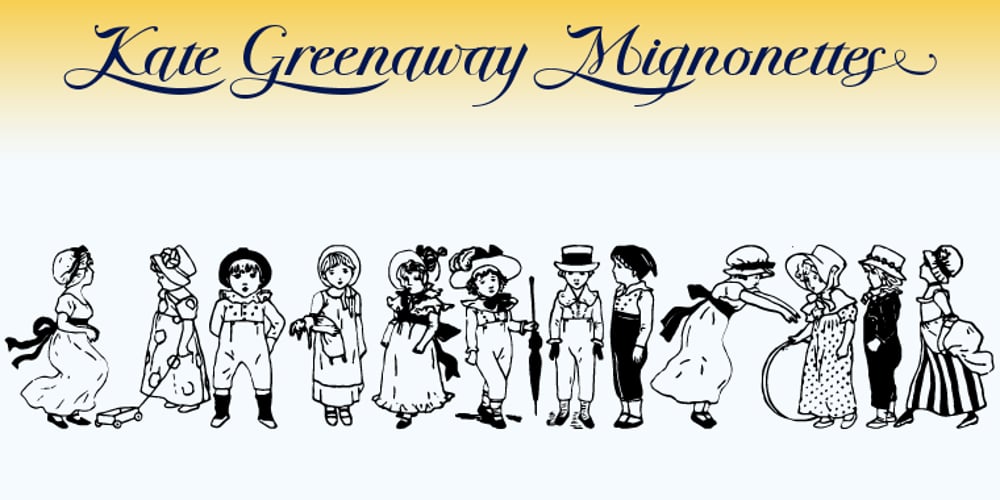
Greenaway Mignonettes Font Family was designed by Gert Wiescher and published by Wiescher Design. Greenaway Mignonettes contains 1 styles and family package options. Kate Greenaway was a very famous British (1846-1901) author and illustrator of childrens books. Her books were an outstanding success in English publishing during the Victorian period. Recently I found these sweet Mignonettes in an old foundry specimen book. Mignonettes is derived from the French word “mignon” which stands for lovely, charming, sweet, delightful, pleasant and that does exactly describe these little drawings. I already published a Kate Greenaway’s Alphabet a couple of years ago. So here is my second installment. Yours, Kate Greenaway fan Gert Wiescher